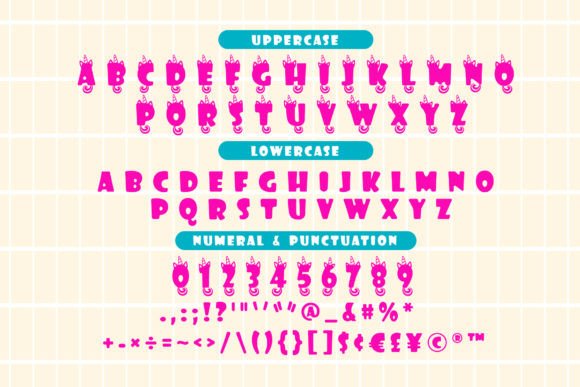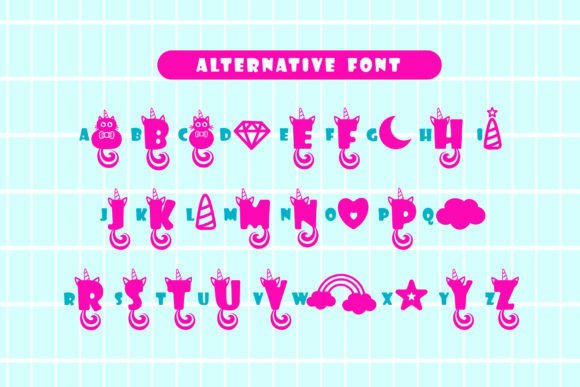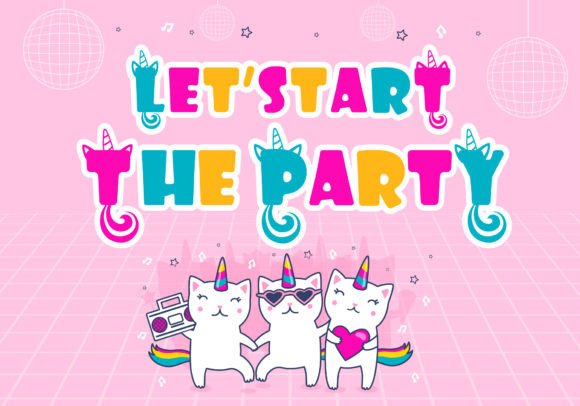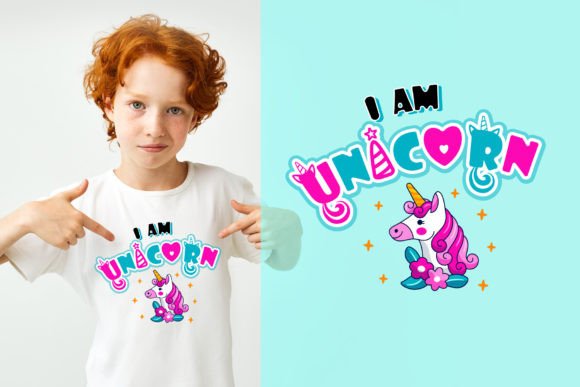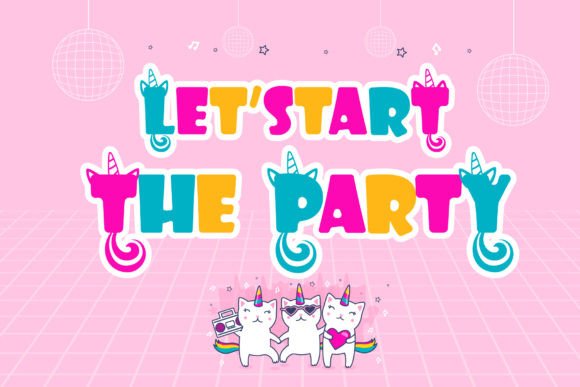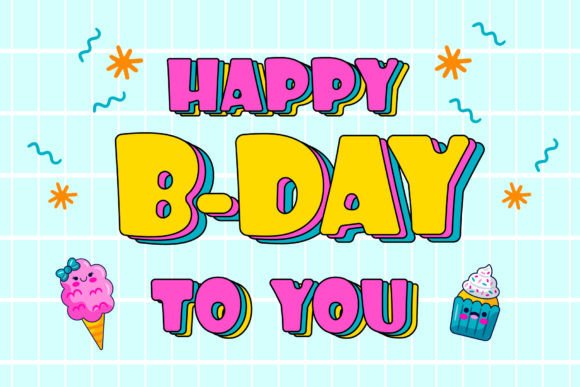
Introduction to Magic Cat Font Font
Fonts play a crucial role in design, and the Magic Cat Font font is a typeface that brings both character and versatility to any project. Whether you’re working on a branding project, a website, or a print design, the Magic Cat Font font offers a unique style that can elevate your work.
Magic Cat fonts is a Handwritten-style Cartoon decorative font with a great punch.
Everything written in this font will be instantly recognizable and will attract attention It will work great for comic book style, online games, cards, love shirts, posters, movie titles, eye-catching social media posts, or anything that requires youthfulness and courage.
Key Features of Magic Cat Font Font
Why Choose Magic Cat Font Font?
The Magic Cat Font font is more than just a typeface – it’s a design tool that helps you communicate your message with style and clarity. Its unique character set and versatile design make it suitable for a wide range of applications, from elegant invitations to bold headlines.
With its carefully crafted letterforms and balanced proportions, the Magic Cat Font font ensures readability and visual appeal across all mediums.
What makes Magic Cat Font font special?
The Magic Cat Font font stands out with its unique design, exceptional readability, and versatility across various design applications.